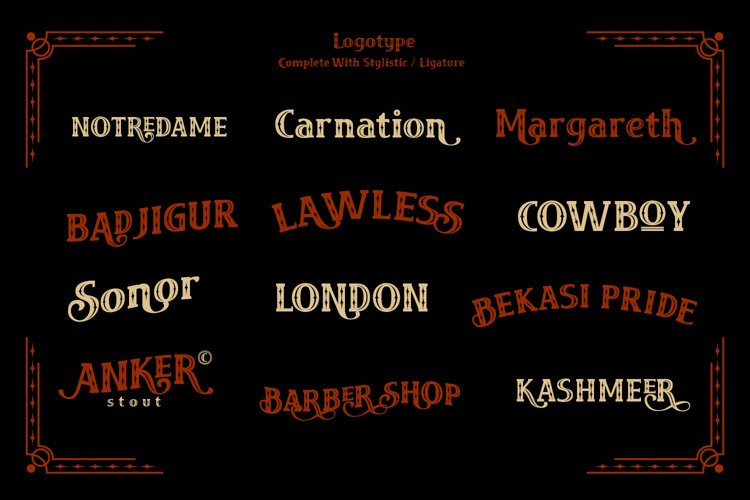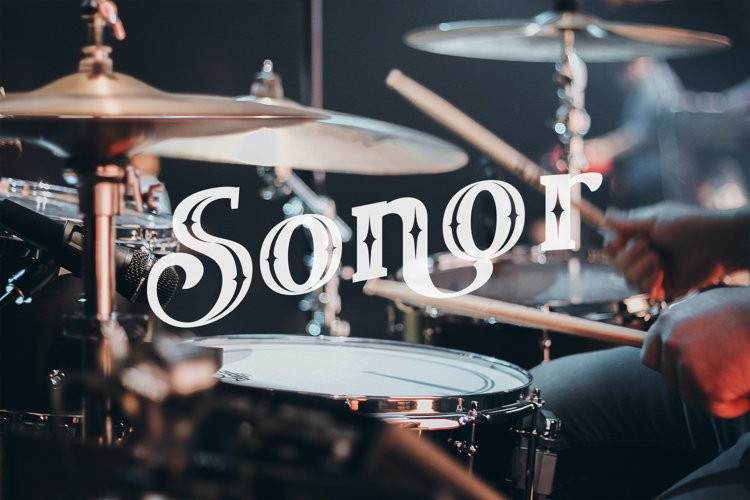
Rexo Font
Rexo FontIntroduce Rexo, a type of letter that has a firm, old-fashioned, and decorative appearance. Rexo like slab type letters you can use in embroidery, labels, logo types or you can also use as big titles in your book, equipped with 2 types of styles (Normal & Decorative) each of which has an Italic style, so you can experience in writing and making works.